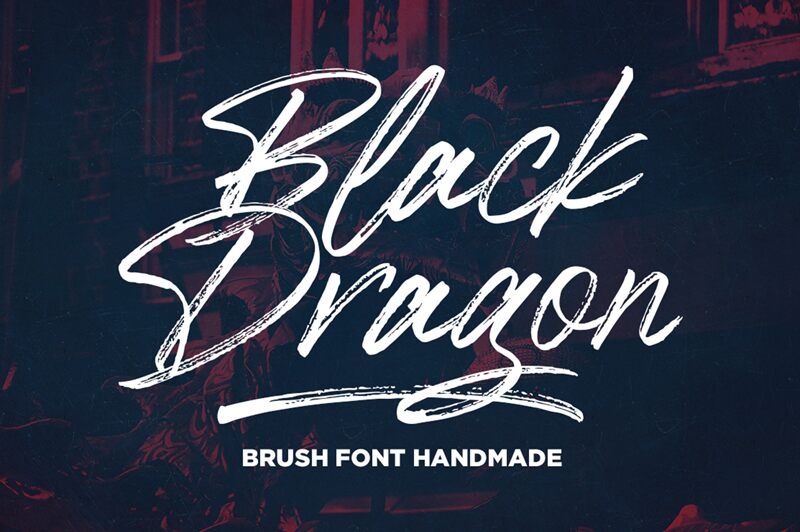
BlackDragon
Black Dragon font by Mega Type is a free brush font that effortlessly communicates casual sophistication and natural elegance. Condensed letterforms characterize this elegant, expressive typeface to give the written text certain lightness. The mono-weight of the connected strokes suggests handwriting, while the curved and fluid shapes combine modern appeal with an artistic flair.
The wrapped style captures attention naturally on greeting cards, magazine covers, editorial headings, singles’ or albums’ released posters with artists and musicians in particular loving it. Black Dragon also comes in perfect for food branding, cafes menus design, apparel branding for summer collections targeting youths/teenagers.